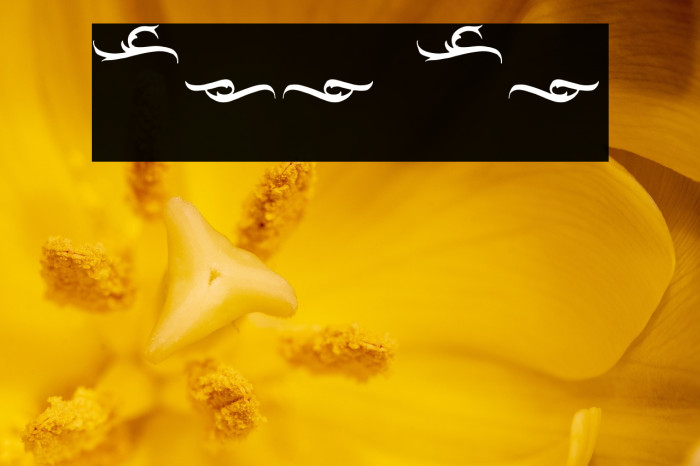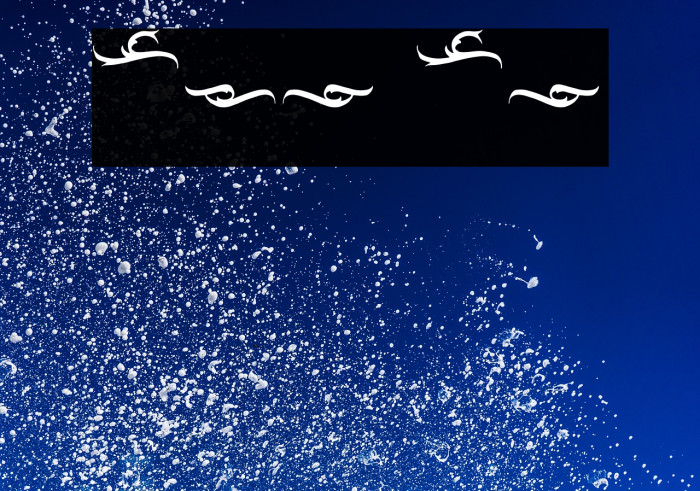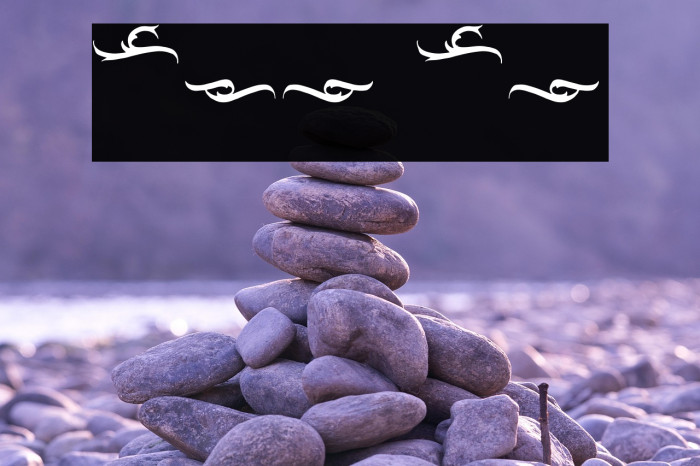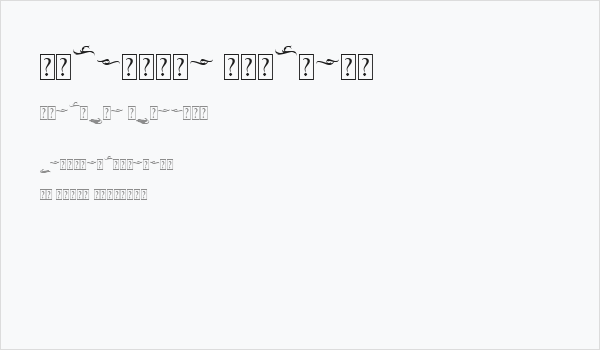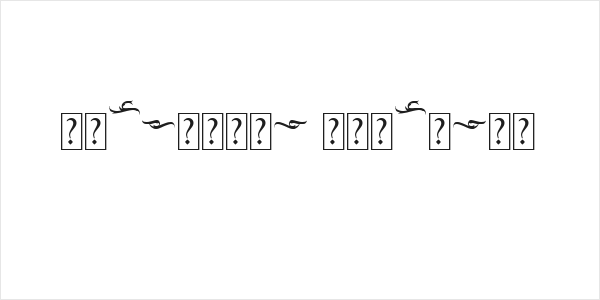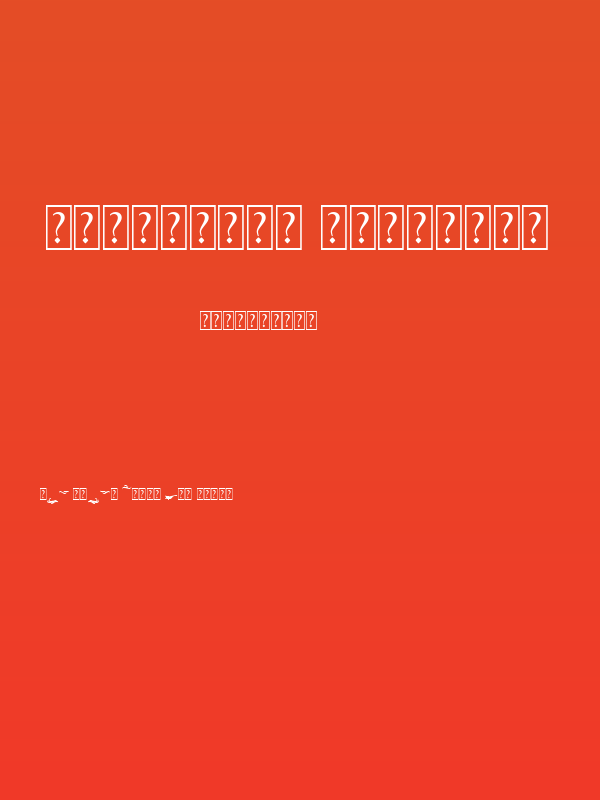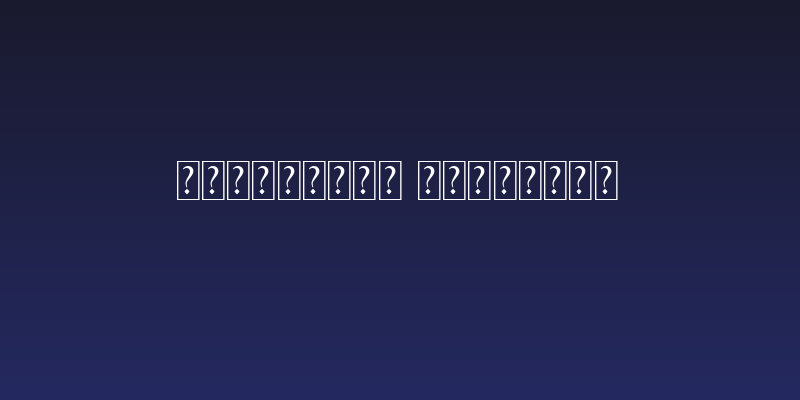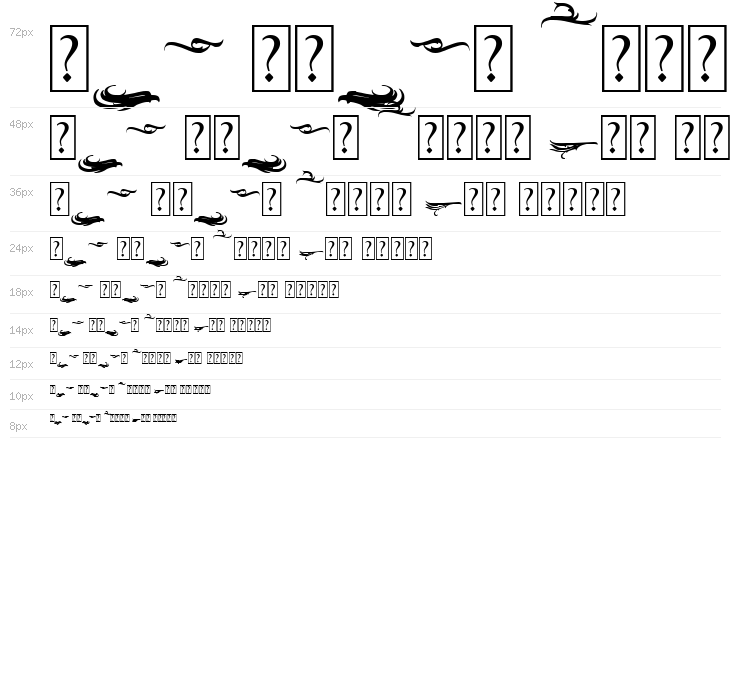
Blackrose Ornament Font
Blackrose Ornament Description
A decorative collection of ornate, flourish-style ornaments with elegant curves and symmetrical designs, suitable for embellishing text or creating visual dividers.
| Overall Style | Decorative, Vintage |
| Use Case | Ornaments, Borders, Dividers, Decorative accents |
| Proposed Projects | Wedding invitations, certificates, greeting cards, decorative borders, vintage-themed posters. |